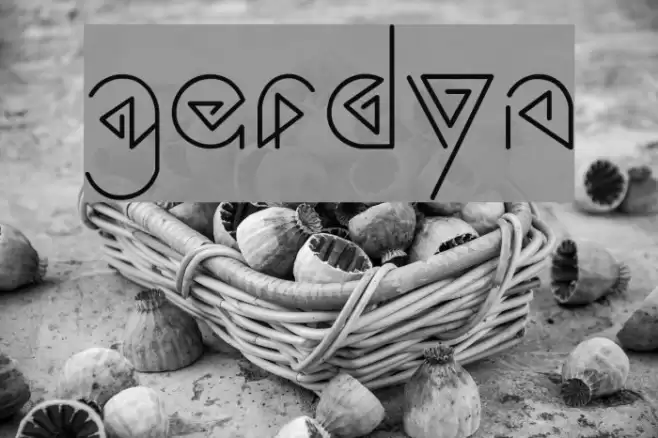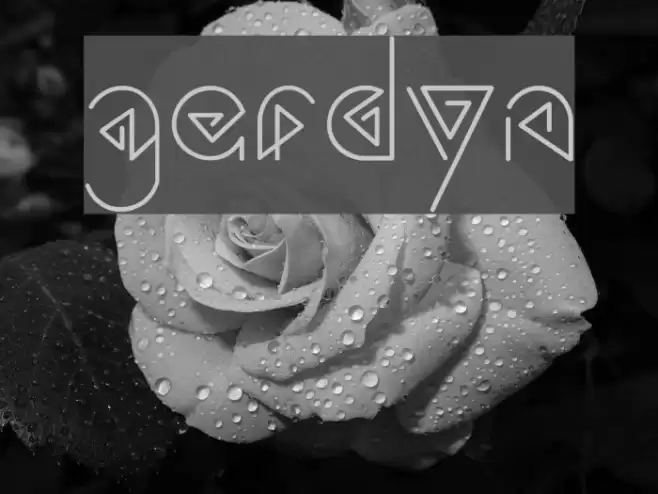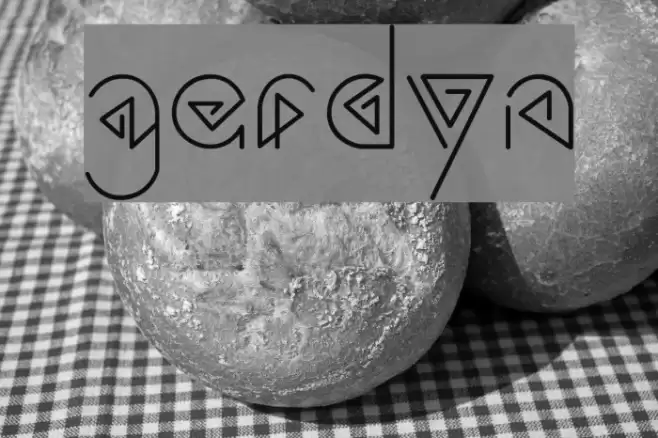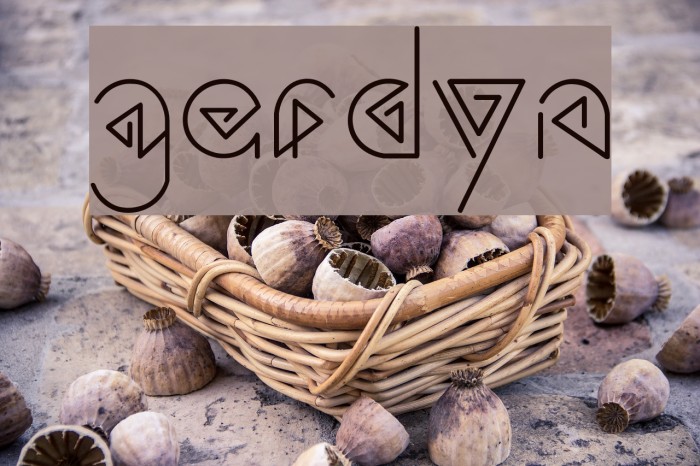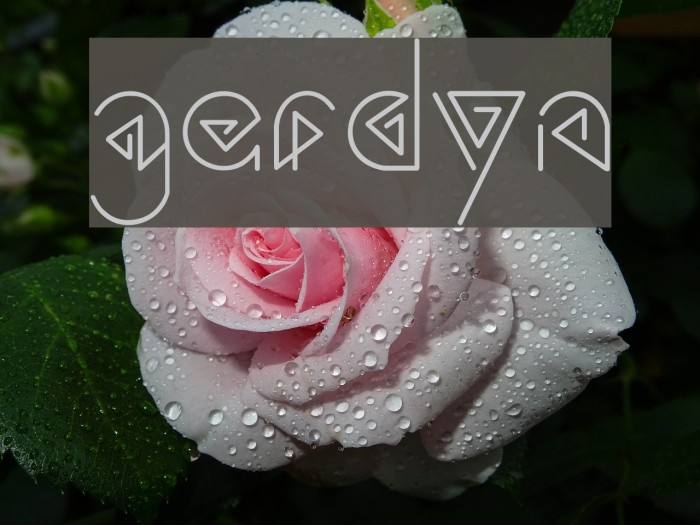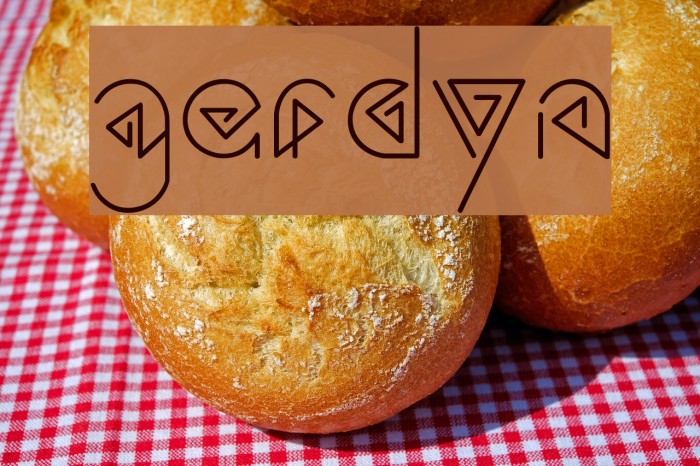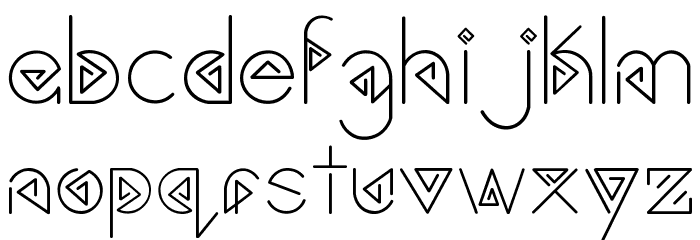
gardyn Font
gardyn Description
This font features a unique and modern geometric design, characterized by its use of angular shapes and clean lines. Each letter is crafted with a combination of straight edges and curves, creating a futuristic and artistic appearance. The font's distinct style is evident in its sharp angles and symmetrical forms, which give it a dynamic and eye-catching look. The overall design is minimalistic yet bold, making it suitable for creative and contemporary projects. Its innovative structure allows for versatility in various design contexts, providing a fresh and engaging visual experience.
A modern geometric font with angular shapes and clean lines, perfect for creative projects from Decorative fonts.
- Proposed Projects: Ideal for branding, logos, posters, and digital artwork that require a modern and artistic touch.
- Use Case: Logos, Posters, Branding